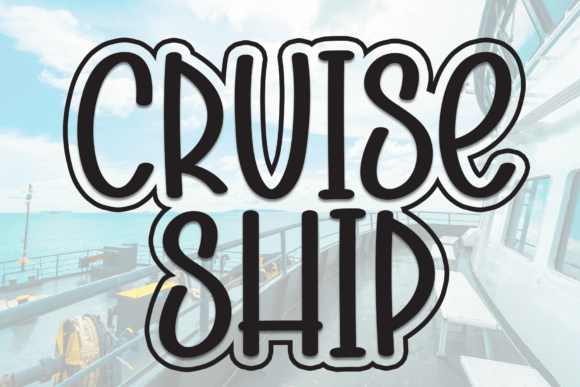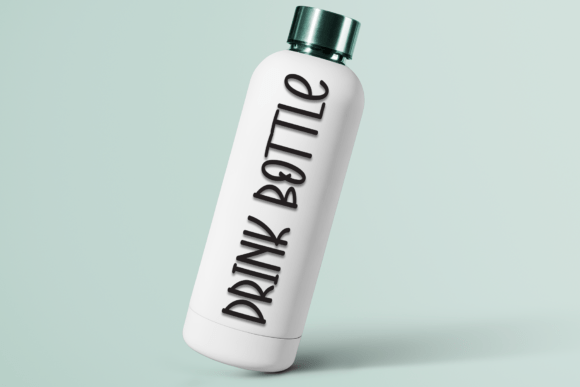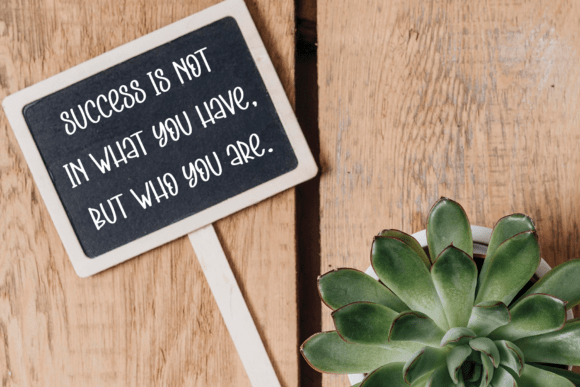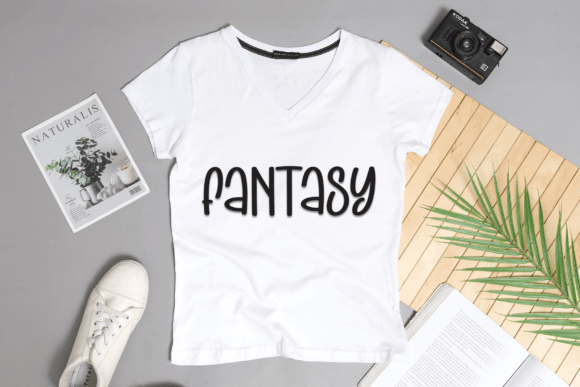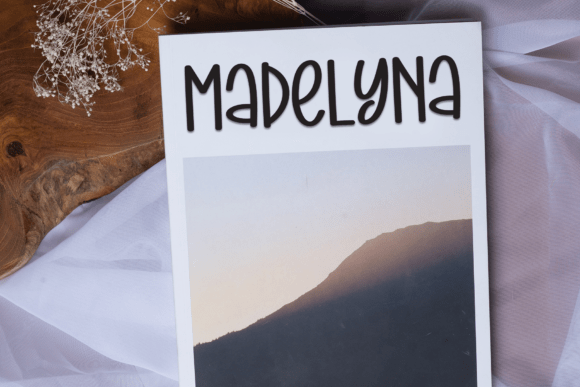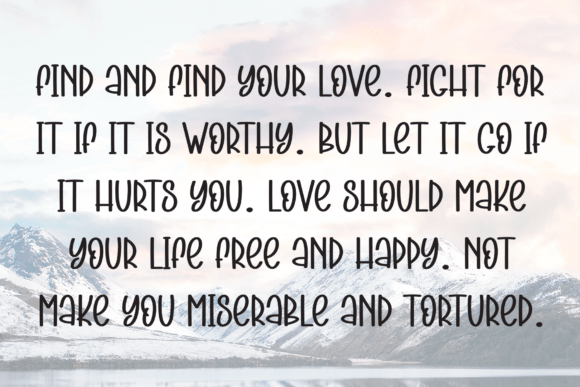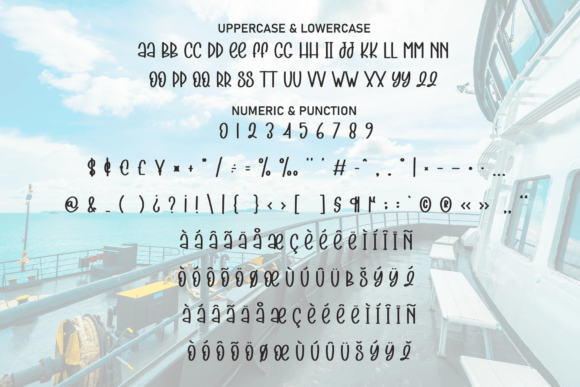
Setting Sail for Design Success
Imagine yourself on a sunny day, sipping a cold drink by the pool, surrounded by the endless blue ocean. The warm breeze carries the sound of seagulls, and you’re feeling relaxed, yet inspired. That’s when the creative spark hits – you start thinking about your next design project, and how you can make it stand out.
For designers looking to bring a touch of warmth and clarity to their projects, the Cruise Ship Font is an excellent choice. This casual and neat display font is designed to make every message feel genuine and inviting, thanks to its clean structure and approachable style. With its balanced letterforms, Cruise Ship Font is perfect for branding, headlines, and everyday designs, making it a valuable addition to any designer’s toolkit.
Cruise Ship Font Key Features
- Font Family: Cruise Ship Font is a sans-serif font family designed specifically for use in signage and wayfinding applications.
- Size: The font family includes a range of sizes from 24pt to 144pt, making it suitable for use in a variety of signage and display applications.
- Resolution: The font is optimized for use at high resolutions, making it ideal for use in digital signage and display applications.
- Unique Characteristics: The font features a bold and clear design, with a unique set of characters and ligatures that are specifically designed to improve readability in a variety of lighting conditions.
- Legibility: The font is designed to be highly legible, even at high speeds, making it an ideal choice for use in signage and wayfinding applications.
Cruise Ship Font Review
Cruise Ship Font is an eye-catching font that can add a unique touch to your design projects. Here’s my honest review.
- Uniqueness: Cruise Ship Font offers a distinct aesthetic that sets it apart from more traditional fonts.
- Playfulness: This font exudes a carefree, adventurous spirit that’s perfect for travel, leisure, or creative projects.
- Flexibility: Cruise Ship Font is available in a range of styles, from casual to formal, making it suitable for various design applications.
- Readability: While the font is visually appealing, it may be challenging to read in smaller sizes or for extended periods.
- Consistency: Some letterforms may appear inconsistent or irregular, which can be jarring in certain contexts.
- Lack of fine-tuning: The font may benefit from additional weight, width, or style variations to enhance its overall usability.
Cruise Ship Font is a fun, one-of-a-kind font that’s perfect for projects where you want to evoke a sense of adventure or playfulness. While it has its limitations, it can be a great choice for designers looking to add some personality to their work. However, it may not be the best fit for projects where readability is a top priority.
Cruise Ship Font Practical Application Guide
To get the most out of the Cruise Ship Font, consider the following tips:
- Use it for titles and headings to add a touch of elegance.
- Pair it with a sans-serif font for body text to create a visually appealing contrast.
- Experiment with different font sizes and styles to achieve the desired effect.
The Cruise Ship Font is commonly used in the following scenarios:
- Travel and tourism branding.
- Luxury and high-end marketing materials.
- Wedding and event invitations.
Alternatives to Cruise Ship Font
Playfair Display is a luxurious serif font that is perfect for high-end branding and invitations. It has a classic, elegant feel that is reminiscent of traditional typography. When to use: luxury branding, invitations, and special occasions. Compared to Cruise Ship Font, Playfair Display has a more refined and sophisticated look, making it suitable for high-end designs.
Great Vibes is a beautiful script font that is ideal for creative and artistic designs. It has a relaxed, casual feel that is perfect for adding a touch of personality to your designs. When to use: creative projects, invitations, and branding for artistic businesses. Compared to Cruise Ship Font, Great Vibes has a more fluid and expressive feel, making it suitable for designs that require a touch of whimsy.